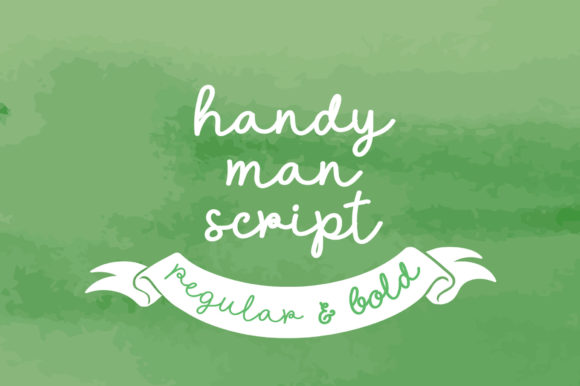
About Handyman Script Font
Handyman Script is a sweet and delicate handwritten font. Suitable to a wide variety of designs due to its neat and simple style, this font has the potential to become your favorite go-to font, no matter the occasion!